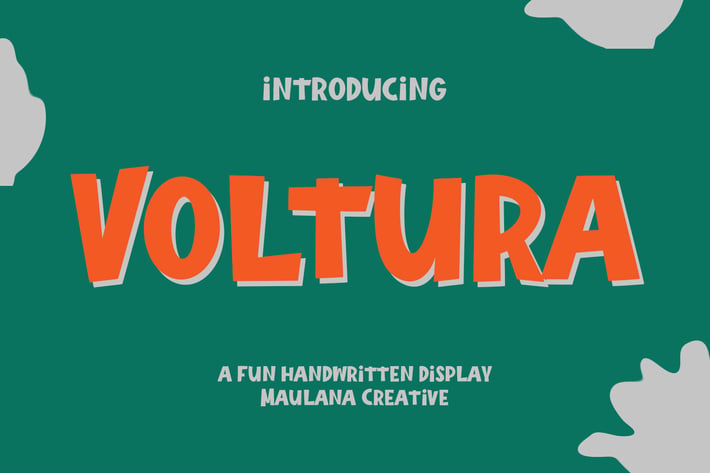
Voltura Sans Serif Handwritten Font
Voltura is a handwritten display font. With sharp bold stroke, fun character. To give you an extra creative work. Voltura font support multilingual more than 100+ language. This font is good for logo design, Social media, Movie Titles, Books Titles, a short text even a long text letter and good for your secondary text font with sans or serif. Make a stunning work with Voltura font.